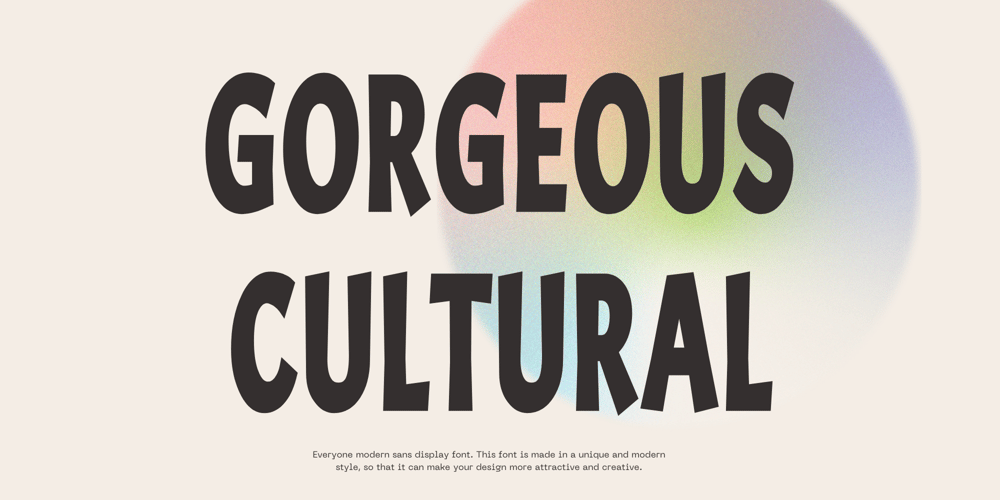
Gorgeous Cultural Font Family was designed by Graphicxell and published by Graphicxell. Gorgeous Cultural contains 1 styles and family package options. inspired by the famous minimalist logo perfect for the purposes of designing templates, brochures, videos, advertising branding, logos, invitation, layout design, elegant crafting, beauty design and more.